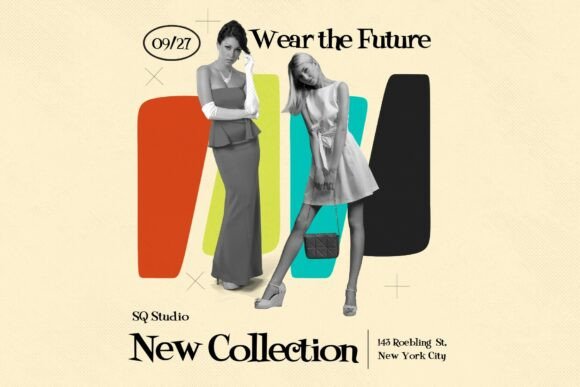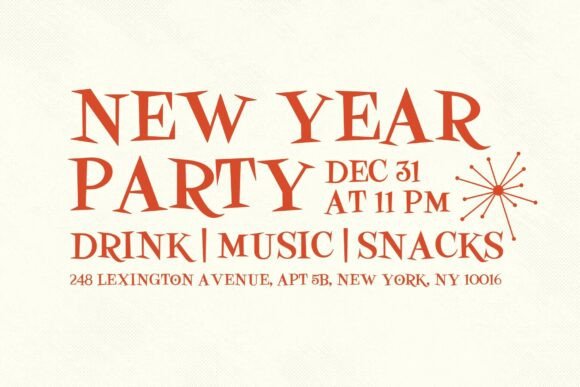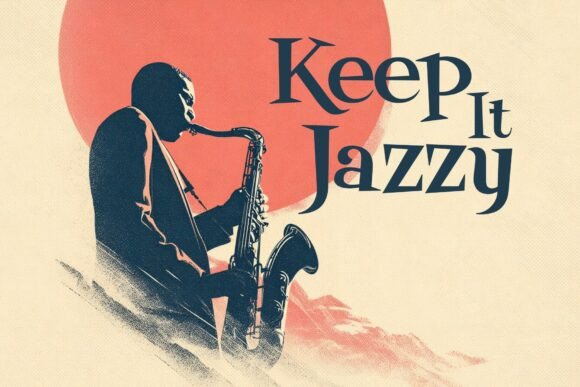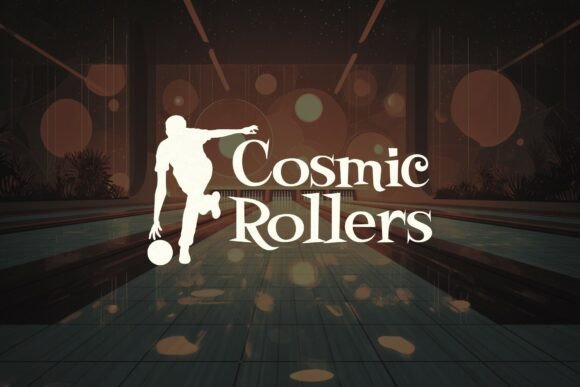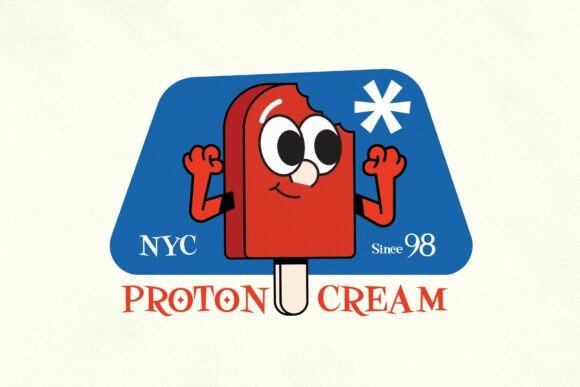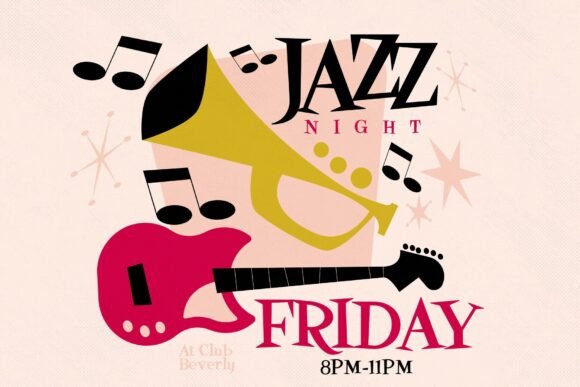
Introduction to Proton Pop Font
Blast off into the golden era of design with Proton Pop, a radiant typeface inspired by the Atomic Age and Mid-Century Modern aesthetics.
Bursting with retro charm and futuristic flair, this font channels the optimism, innovation, and sleek geometry of the 1950s and โ60s, when everything from cars to coffee tables looked like it came from outer space Proton Pop isnโt just a pretty face.